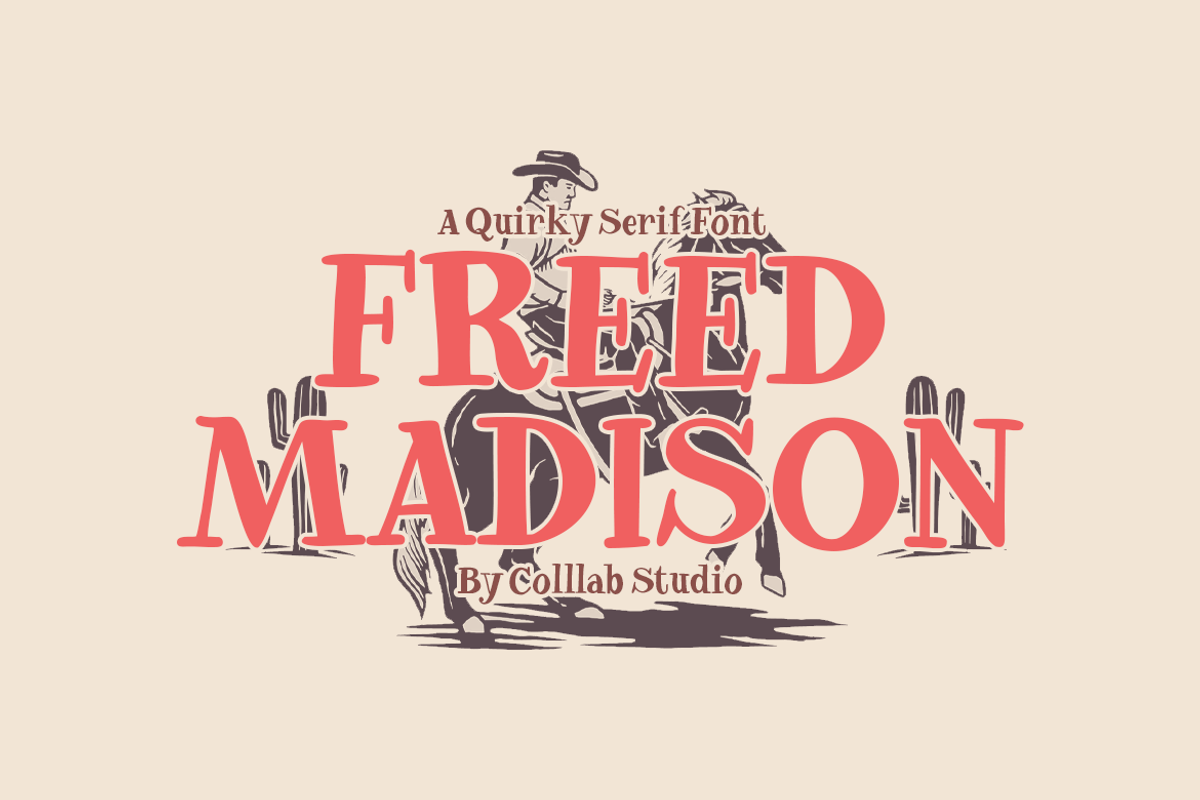
Freed Madison | A Quirky Serif Font Free Download
Freed Madison | A Quirky Serif Font Free Download is a fun, stylish serif typeface that blends classic structure with playful personality. With its unique letterforms and creative details, Freed Madison is perfect for branding, editorial design, packaging, social media graphics, and lifestyle blogs that need a fresh and artistic touch.
Freed Madison | A Quirky Serif Font Free Download stands out with its slightly irregular shapes and whimsical elegance, making it ideal for projects that want to feel both refined and approachable. It’s the perfect mix of tradition and charm—great for everything from boutique logos to eye-catching headlines.